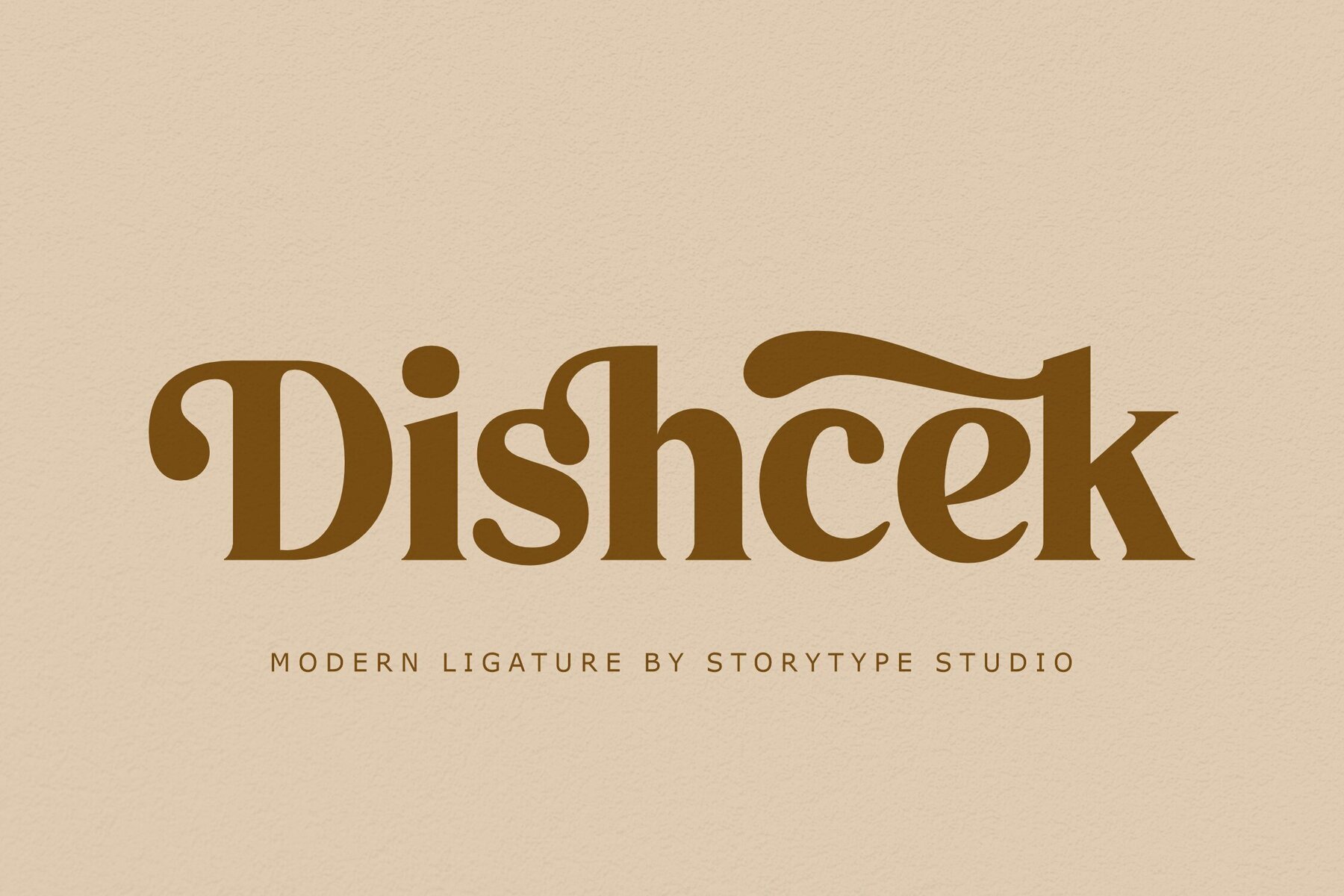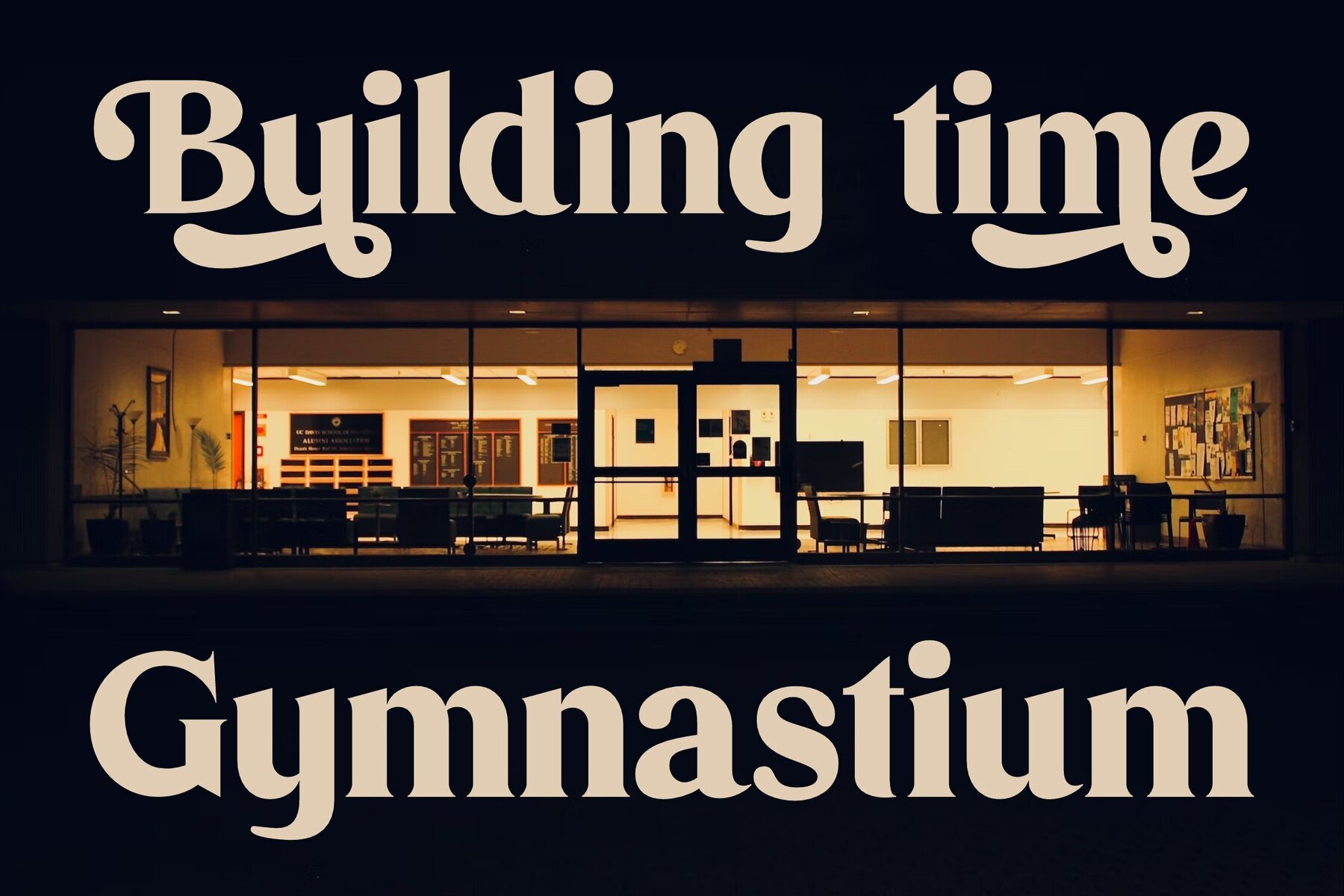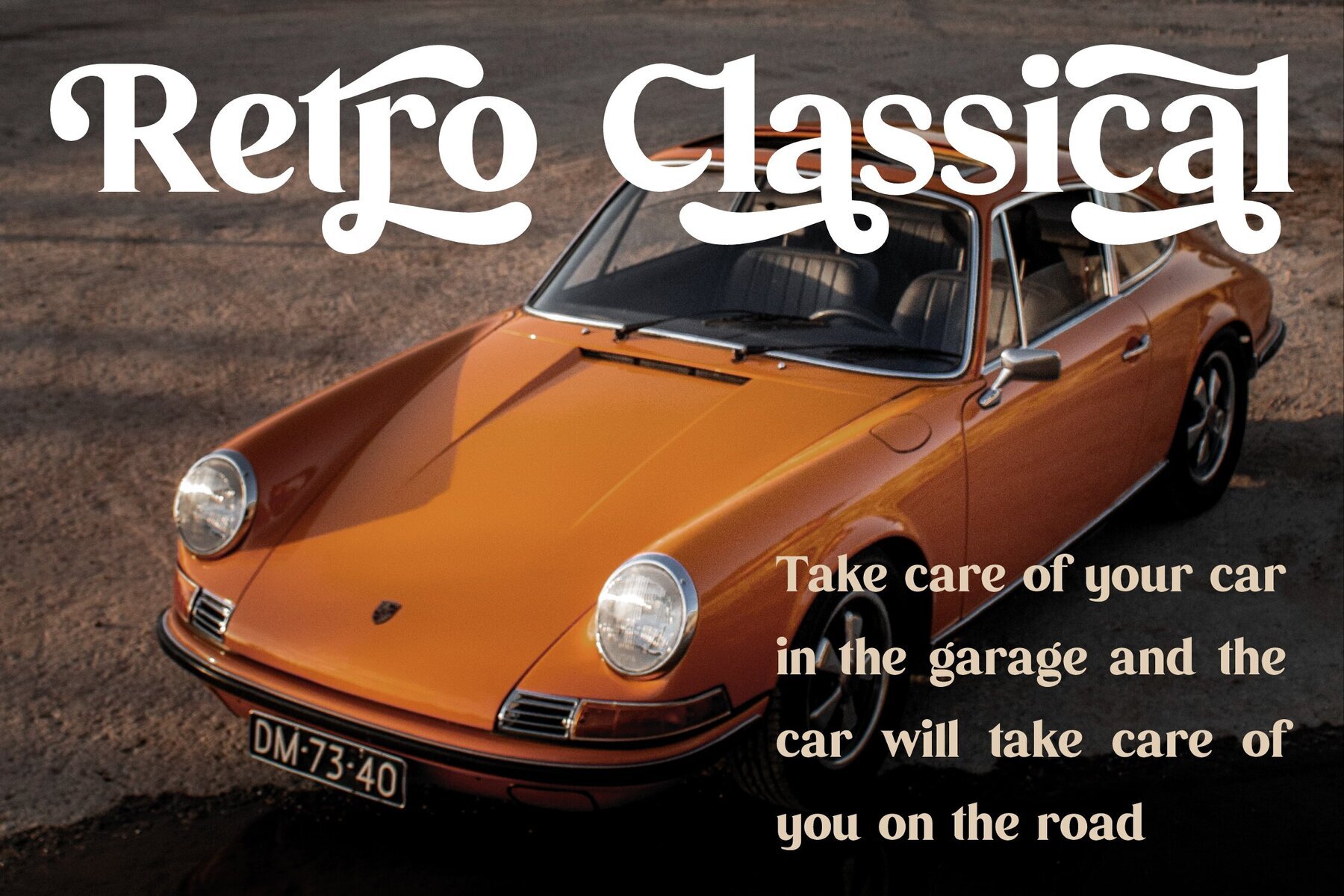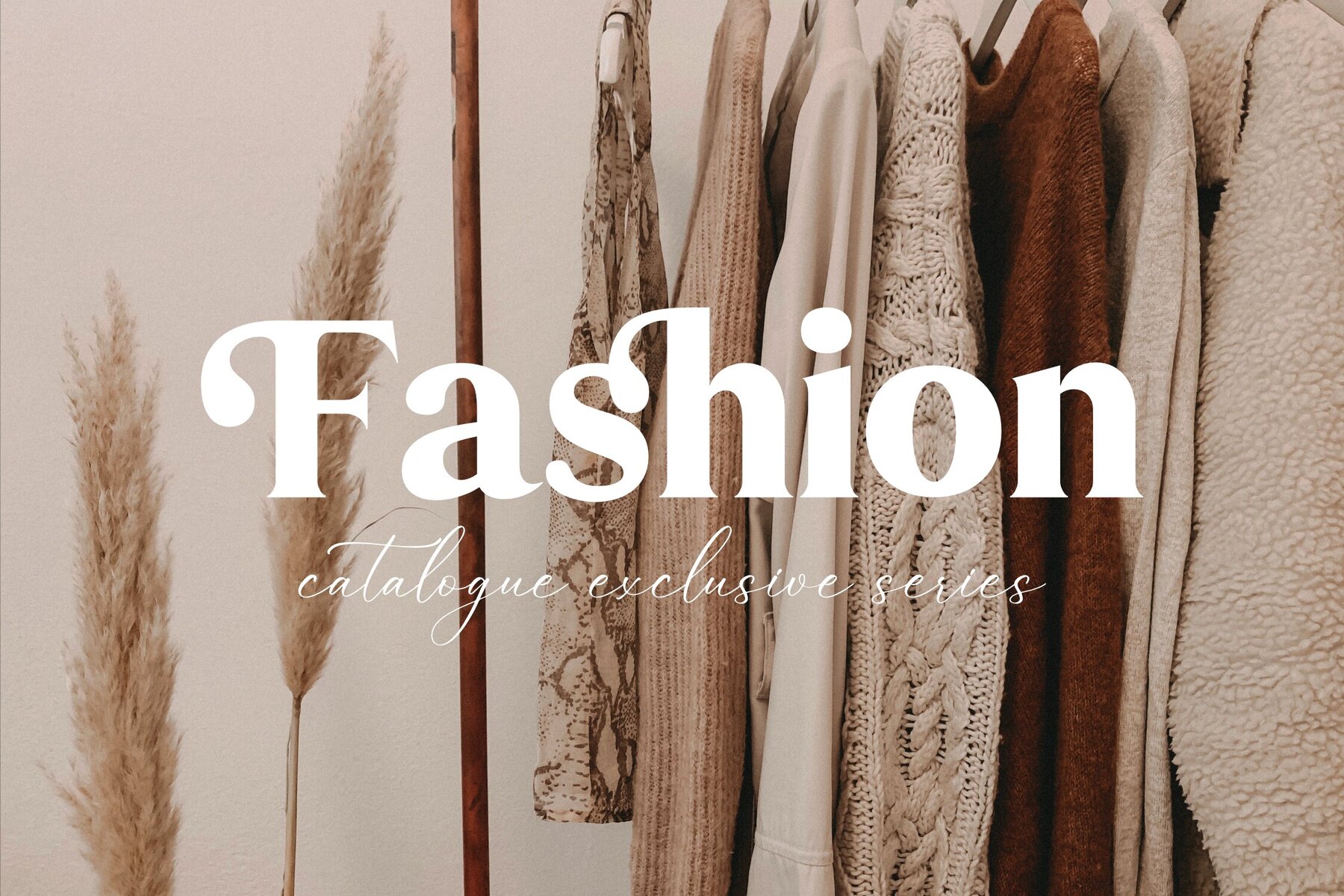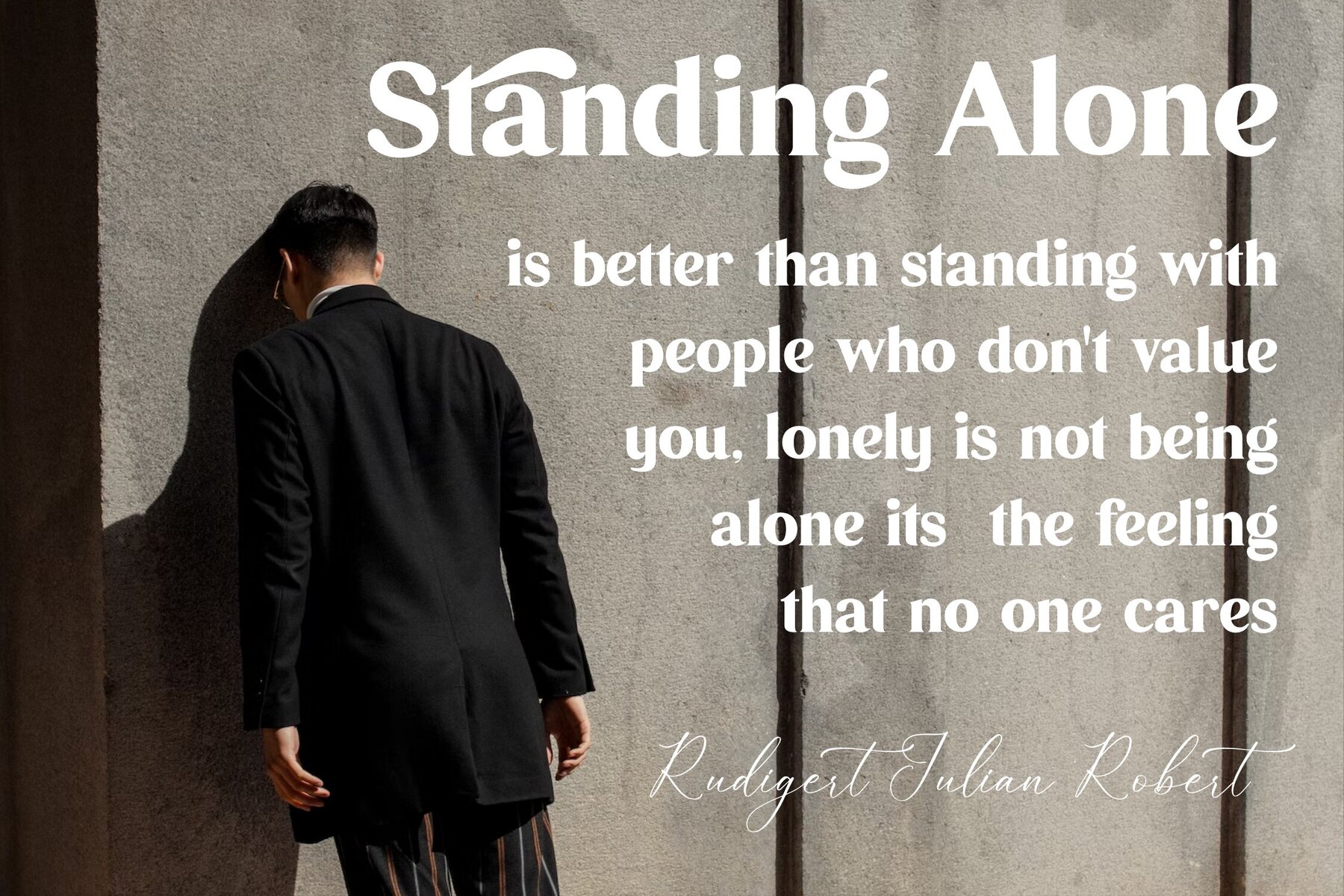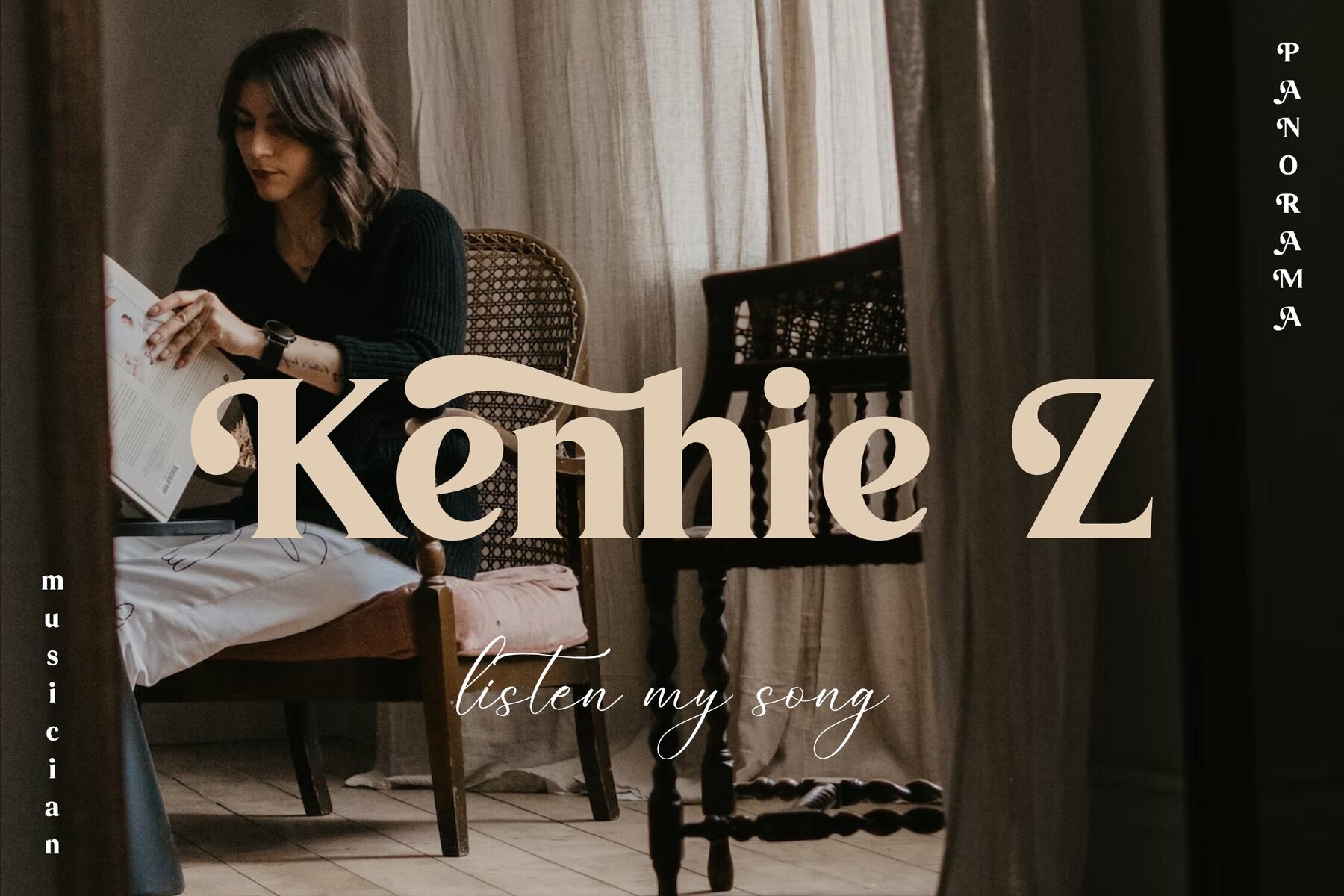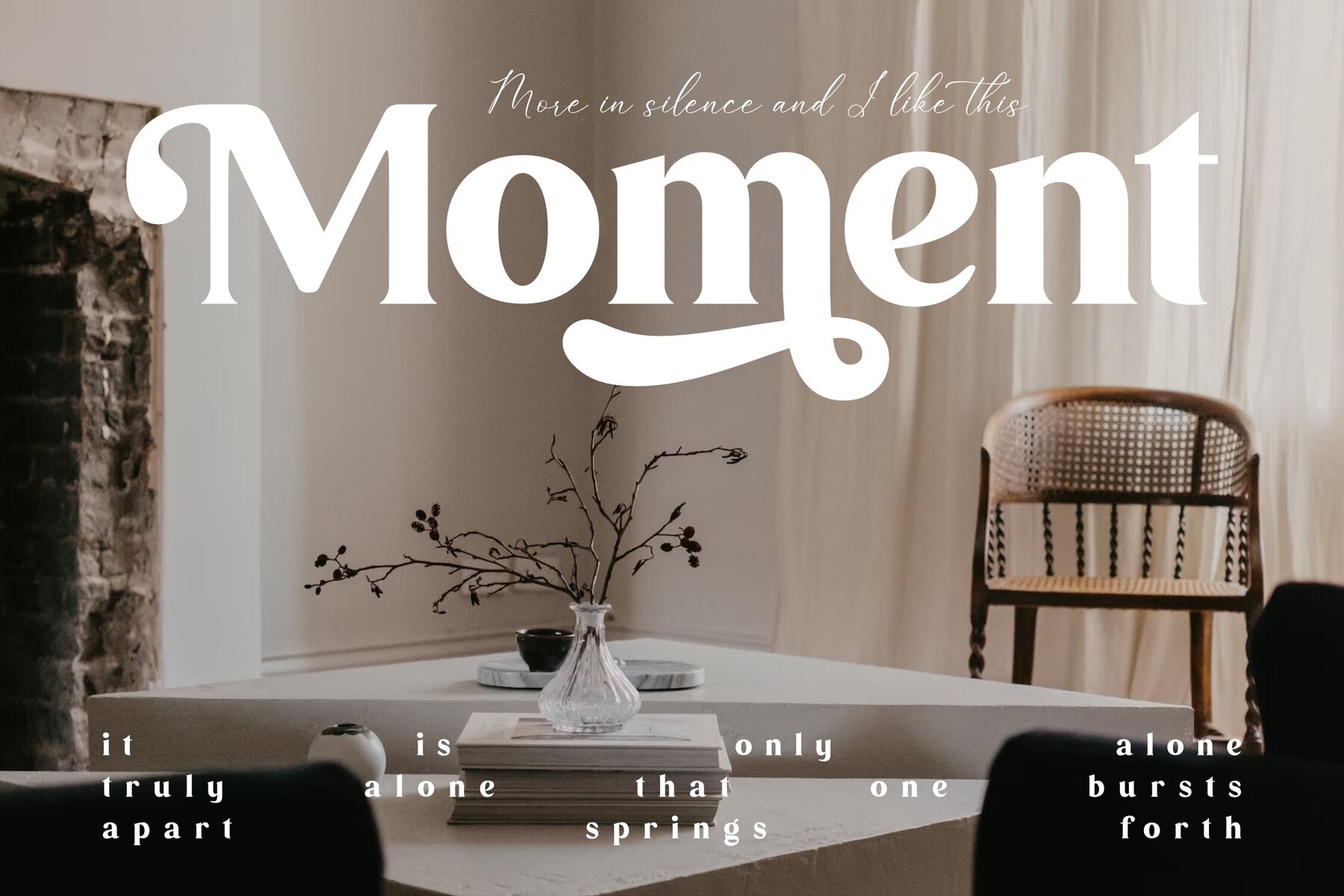
Dishcek Font
Embrace the sophisticated charm of Dishcek, a modern and classic serif typeface crafted by Storytype Studio. This font boasts a unique style and a contemporary flair, making it the perfect choice for projects that demand an elegant and luxurious touch. Whether you're designing a logo, book title, or fashion brand, Dishcek delivers versatility and class, suitable for magazines, clothing design, and inspiring quotes.Discover the Timeless Elegance of Dishcek Typeface
Features of Dishcek Typeface